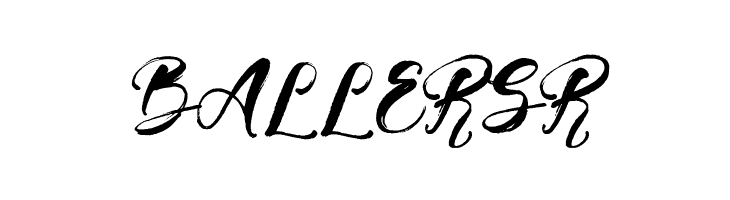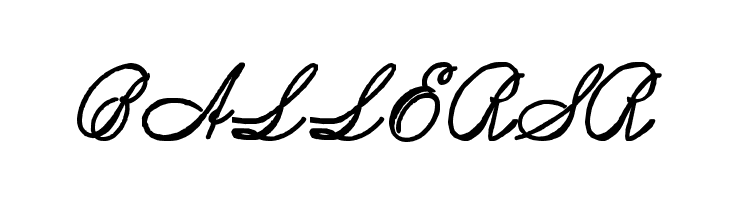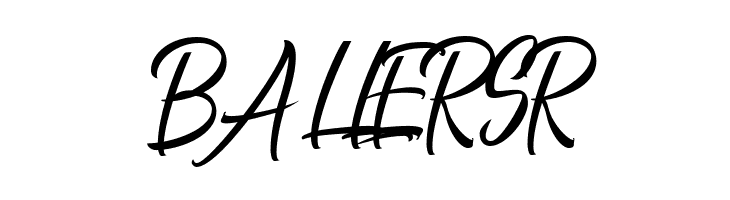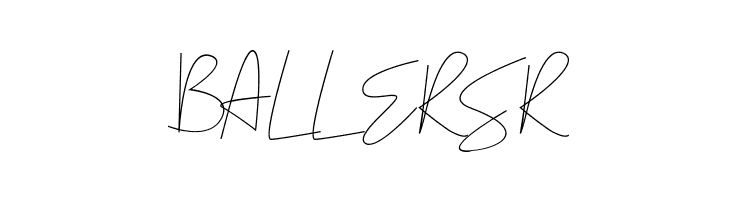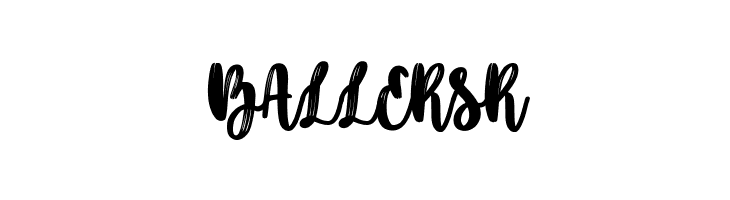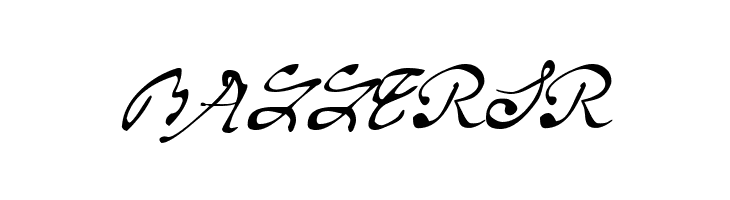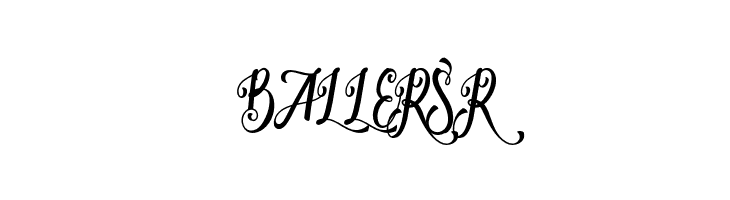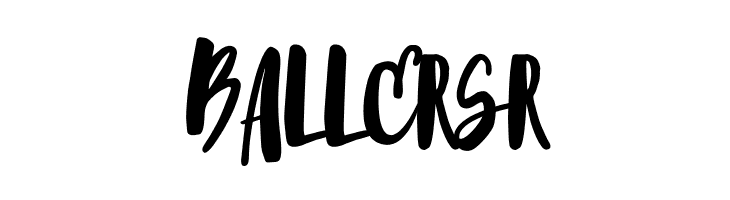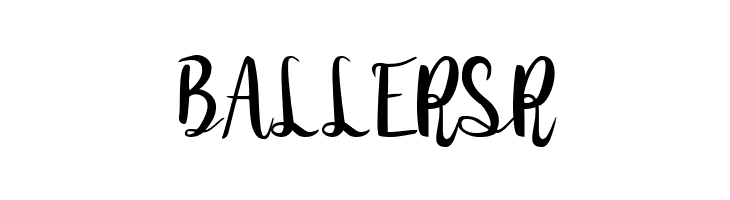
An elegant script font with flowing, interconnected letters and dynamic stroke contrast.
A bold, expressive script font with a hand-drawn, brush-like texture.
An elegant and sophisticated script font with flowing cursive letters and intricate flourishes.
A bold, expressive script font with a hand-drawn, artistic style.
A smooth, brush-style script font with elegant, flowing characters.
An elegant and flowing script font with dynamic strokes and interconnected letters.
A bold, flowing script font with a lively, handwritten style.
A lively, flowing script font with elegant, elongated letterforms.
An elegant and flowing script typeface with interconnected letters and ornate flourishes.
A graceful and elegant script font with flowing cursive style.
A casual, handwritten script font with a friendly and fluid style.
A lively and fluid script font with interconnected cursive strokes.
A graceful and sophisticated script font with flowing, interconnected letters.
A graceful script font with flowing, cursive strokes and elegant loops.
An elegant, flowing script font with graceful loops and swashes.
An elegant script font with intricate loops and swashes, perfect for artistic projects.
An elegant, flowing script font with a calligraphic style.
An elegant script font with flowing lines and sophisticated style.
A flowing, elegant script font with a dynamic and sophisticated style.
A bold, italic script font with a flowing, cursive style.
A dynamic and fluid script font with elegant, handwritten characteristics.
A bold, festive script font with playful holiday icons.